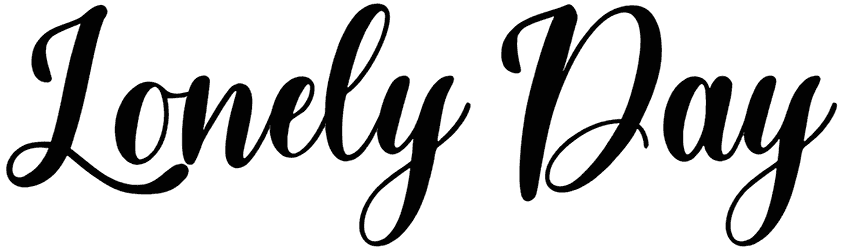
Lonely Day Font
Lonely Day is a powerful tool for designers who want to show off their professionalism. By using this Valentine font, you can create human relationships in your content that make it easier for you to communicate with the audience.
The characters of this font are designed as calligraphy and do not need additional elements for beauty. Using this script font, designing posters, wedding cards, and invitations will not take much time.